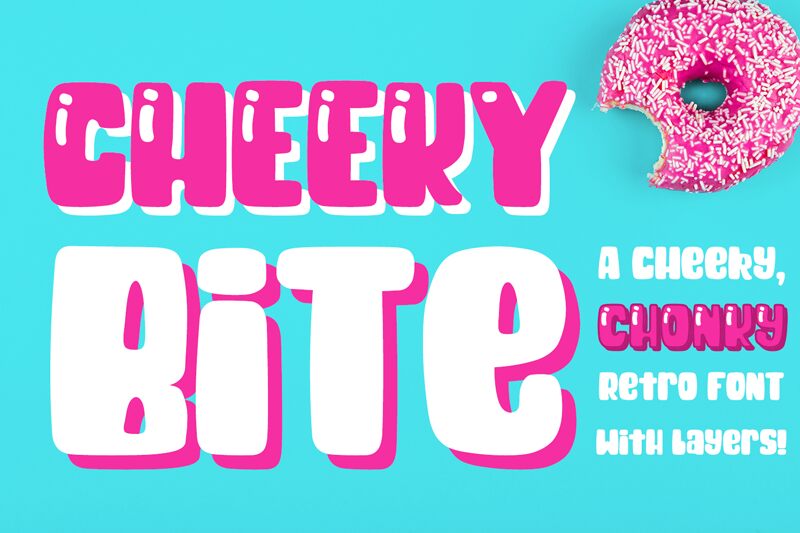
Cheeky Bite Shine is a chunky, retro font perfect for fun attention-grabbing headlines. It is part of a layering system, but it can be used alone.
This font has 355 characters including Basic Latin, numerals, punctuation and multilingual support.